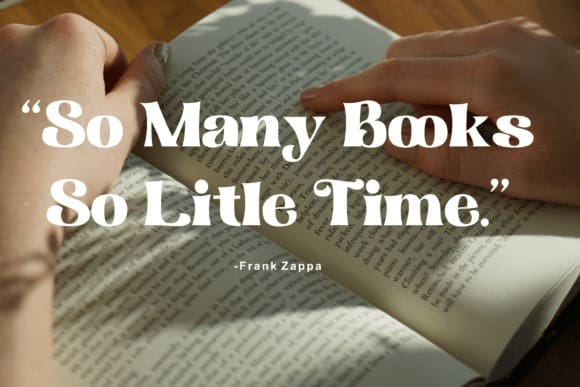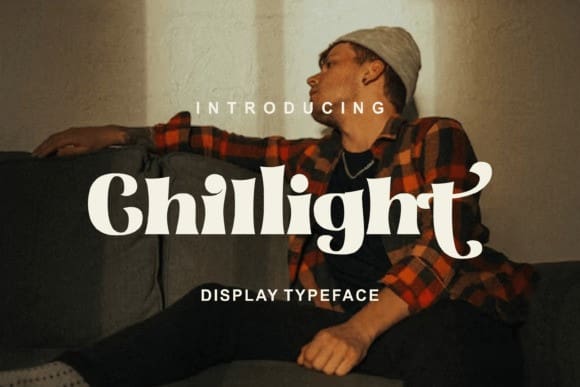
Chillight Font
Chillight Font is a serif typeface that is unique and has character, having a narrow, sharp width and ends, making it effective when used at large sizes for logotypes or headlines.